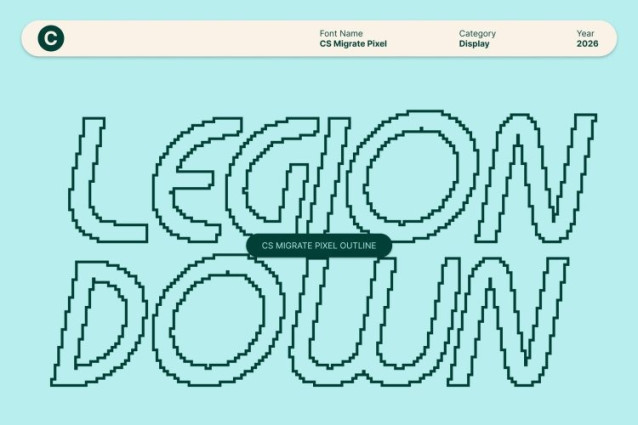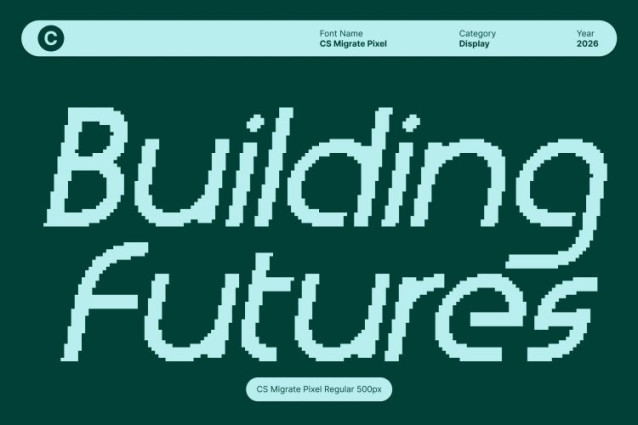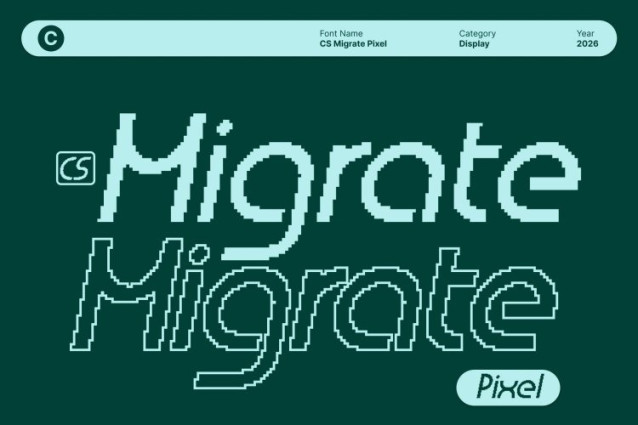
CS Migrate Pixel Font
CS Migrate Pixel Font This is a modern display font inspired by Bauhaus principles of clarity, function, and geometric beauty, enhanced with pixel-based construction. Built from clean shapes, modular grids, and digital precision, this typeface delivers a structured and contemporary look that feels artistic, rational, and visually strong. It reflects modernist ideals through a distinctly digital lens.
Geometric Pixel Construction with Modular Rhythm
The letterforms are crafted from precise geometric elements and pixel-aligned forms, creating a cohesive and balanced typographic system. Circles, straight lines, and simplified curves work together within a grid structure, giving the font a rhythmic, architectural presence that feels bold, ordered, and engaging in display use.
Modern Design Rooted in Bauhaus Heritage and Digital Logic
This font bridges classic Bauhaus ideology with modern digital aesthetics. While honoring the “form follows function” philosophy, the pixel approach introduces a contemporary, tech-forward character. The result is a font that communicates innovation, structure, and progressive thinking perfect for modern visual culture.
Versatile for Posters, Branding, and Modern Editorial Layouts
Designed for expressive and high-impact applications, this font performs exceptionally well in posters, branding systems, editorial layouts, exhibitions, and creative campaigns. Its strong geometry and pixel clarity ensure high visibility, while its modular structure adds sophistication and design credibility.